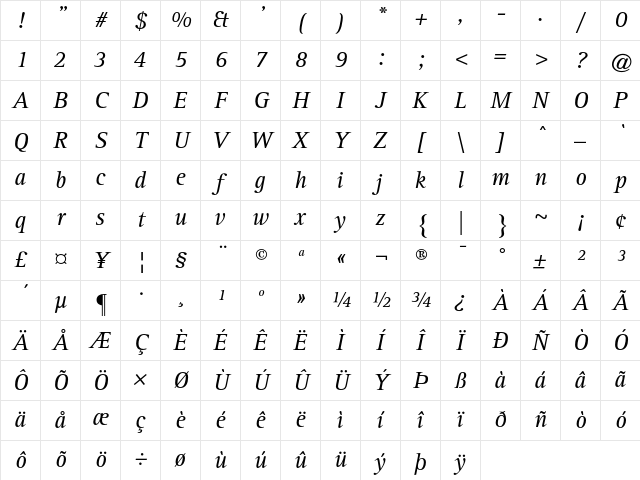
Complete Rotis Serif AT Italic glyph index. Displaying only characters natively supported by Rotis Serif AT Italic font.
Rotis Serif AT carries the refined structure of traditional serif typography, with bracketed terminals and considered proportions that communicate credibility and craft. The slanted form adds forward momentum and visual energy.
Pro Tip: Use Rotis Serif AT for editorial body copy and considered headline work. Pair with a neutral sans for UI elements or captions to create a classic hierarchy.